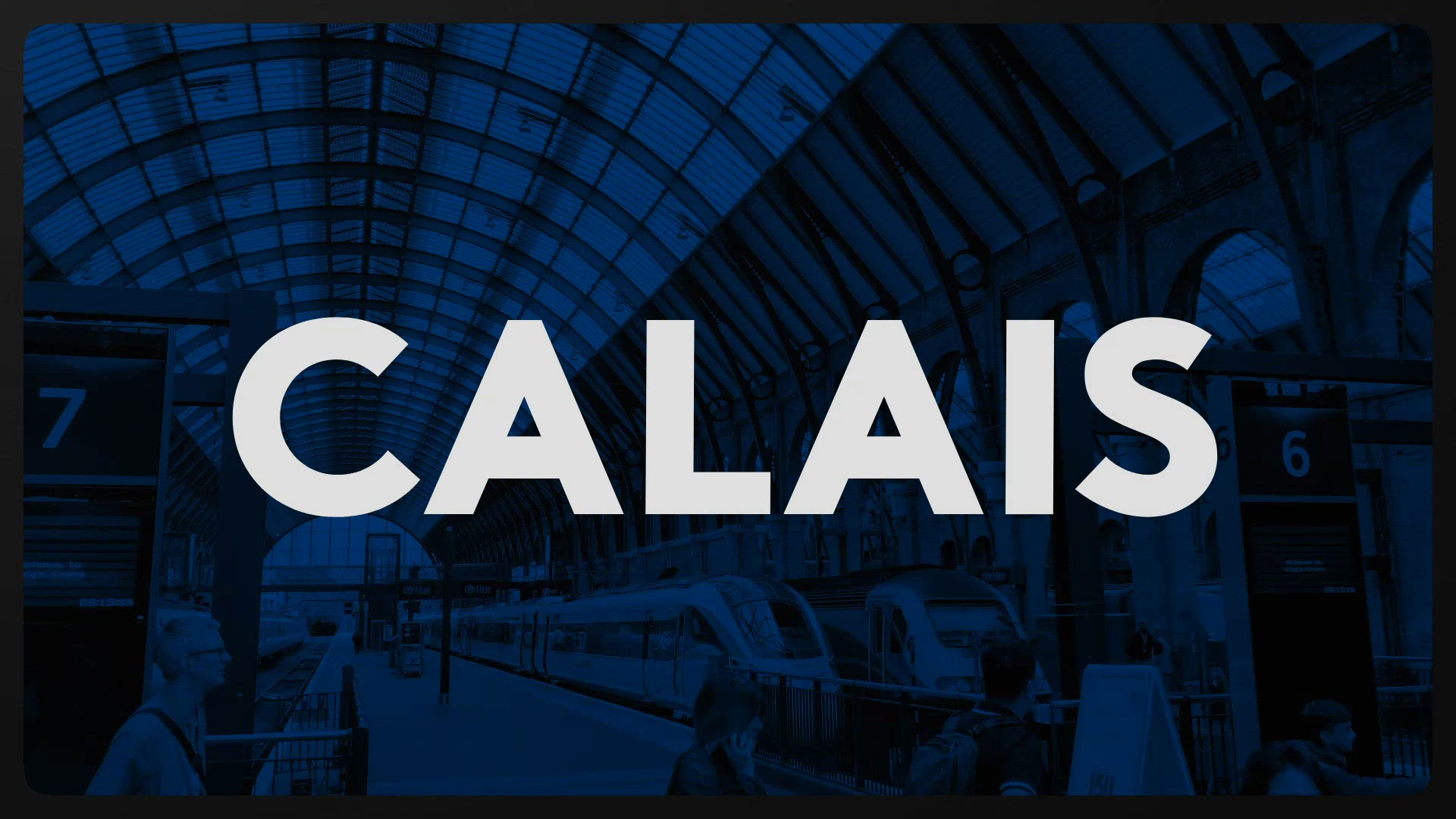
Calais Typeface
Calais is a variable typeface family that precariously harmonizes humanist fashions and mechanical geometries . Drafted on a Parisian train bound for a field trip in London, the typeface is a design exercise representing this liminal space in time and landscape. It attempts to reconcile early-century British sans-serifs while also paying homage to the finesse of French typography.
What sets Calais apart is its variable italics, which not only slant forward but also backward. It mechanically evokes the speed of trains darting through the Chunnel while also marvelling at the elegant fashion-forward metropolises it connects. These dynamic italics capture this space's essence of motion and fluidity. Its further variability in weight makes it infinitely useful across both momentous and everyday design touchpoints. Just like the locomotives that move between these cities, it is a daily workhorse.
Calais, with its roots in the humanist philosophy, infuses modernity into its sans-serif facade. Inspired by the geometry of British industry and the elegance of French artistry, Calais navigates the delicate balance between tradition, innovation, and trade found in this liminal space.